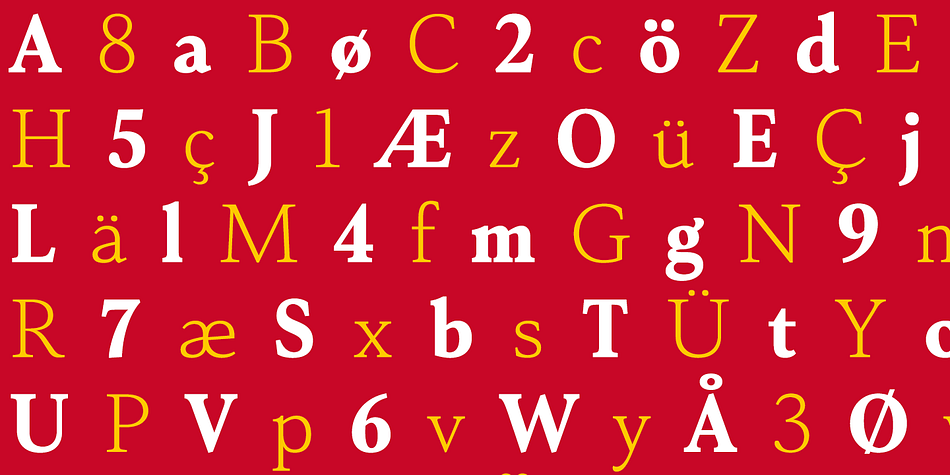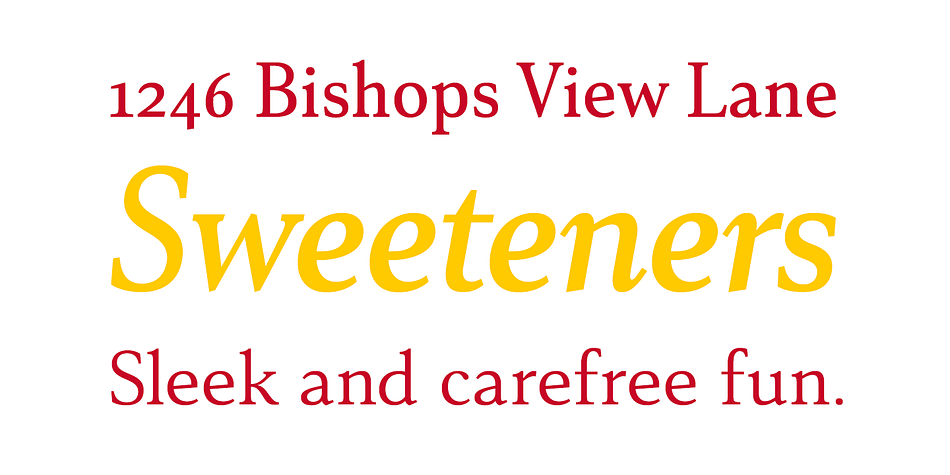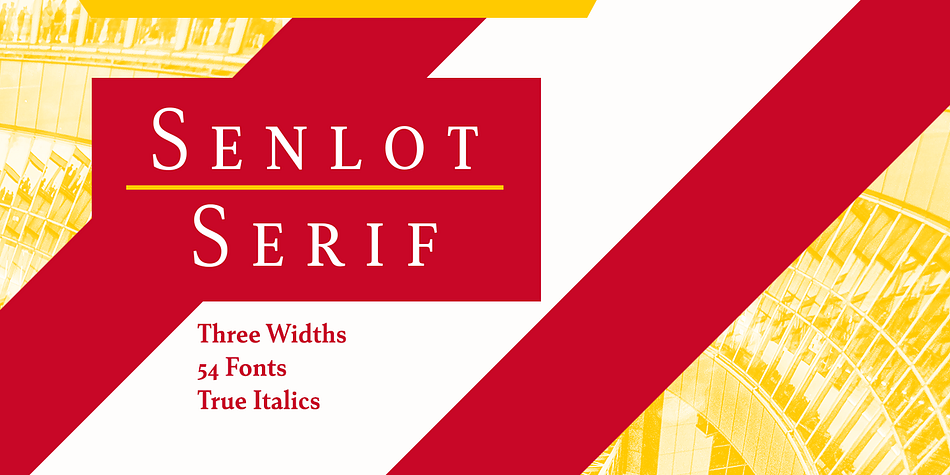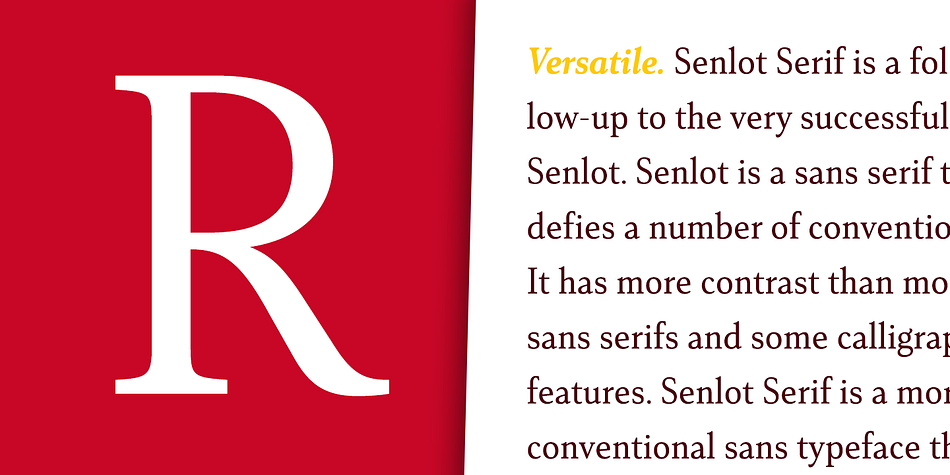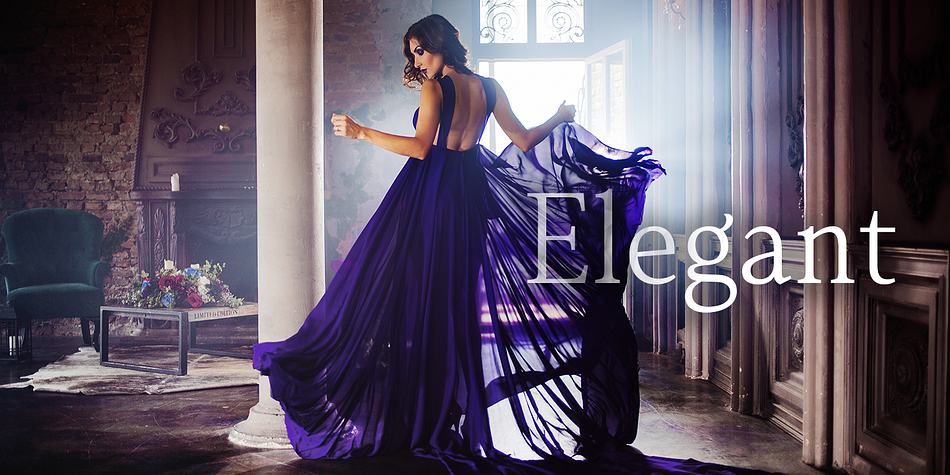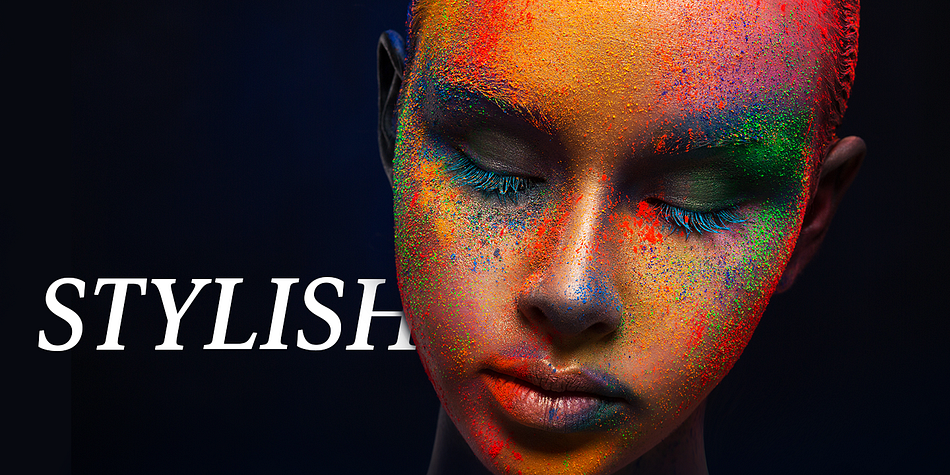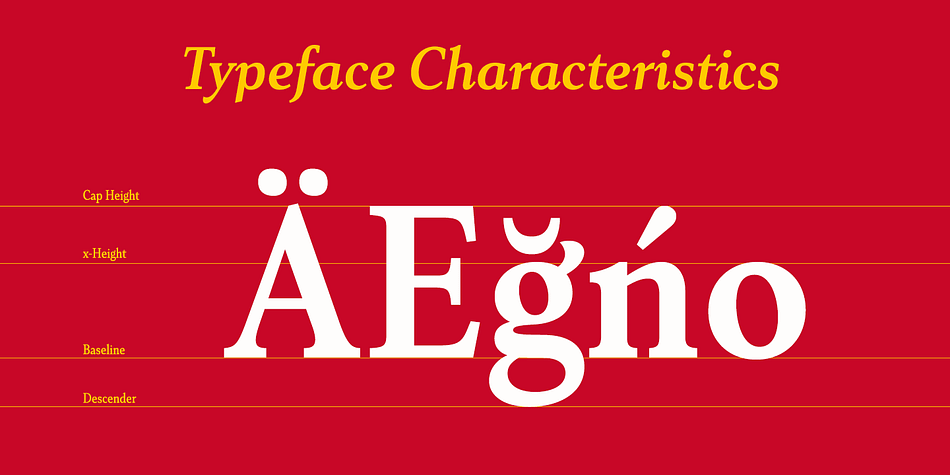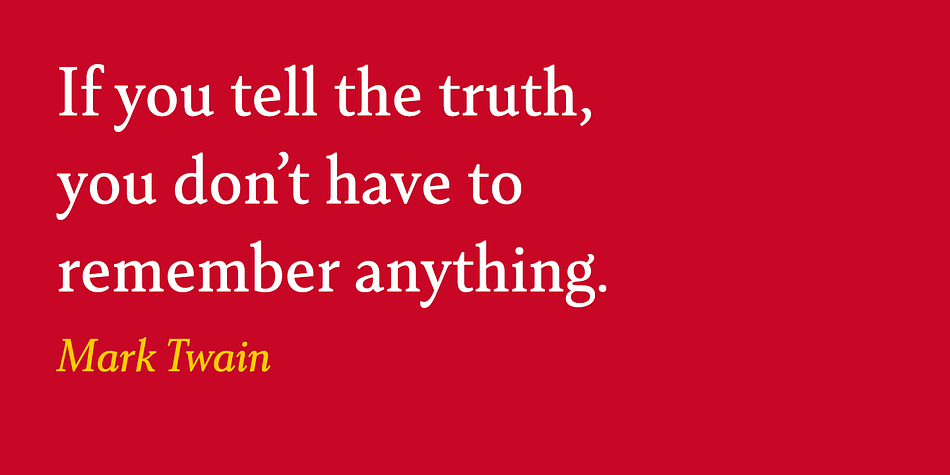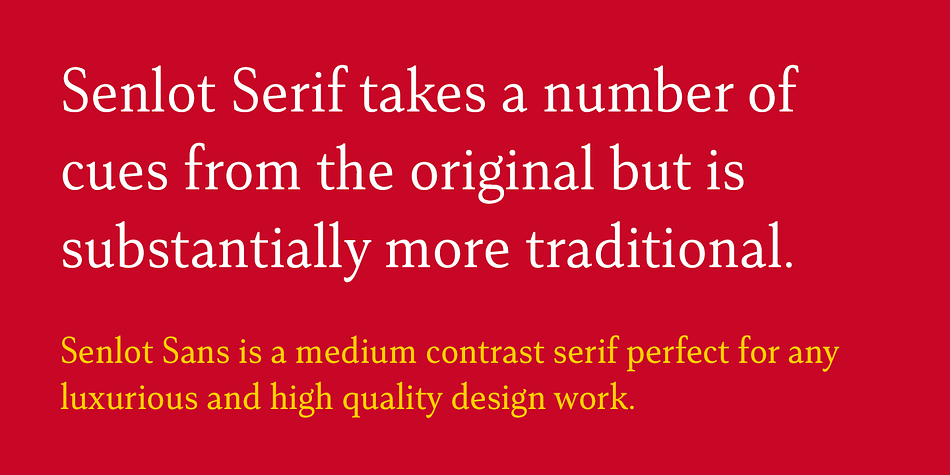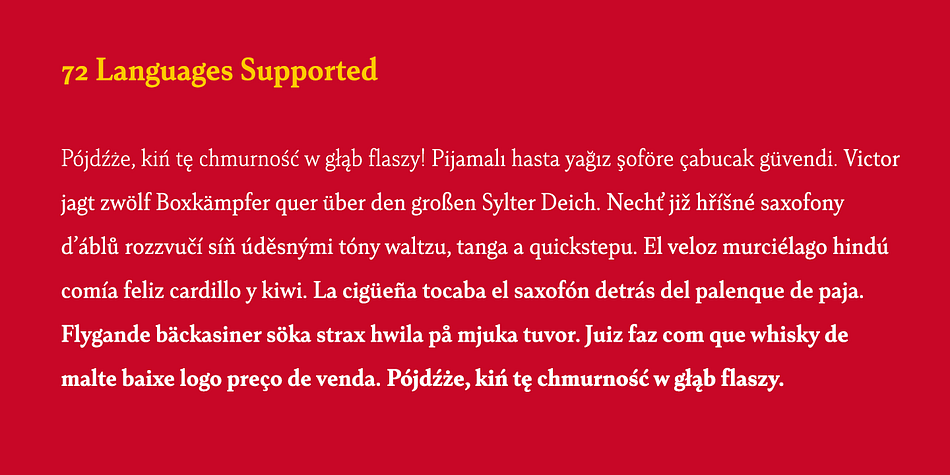
Designed by Jeremy Dooley, Senlot Serif is a serif font family. This typeface has fifty-four styles and was published by Insigne Design.
Senlot Serif is a follow-up to the technical yet elegant sans serif Senlot.
In this serif edition, the original’s calligraphic tension shines through, with a moderate amount of contrast. Moreover, you can use Senlot Serif to set large amounts of text or for titling. It has a special calligraphic tension, and lends itself to luxury and design work of high quality.
There’s a full set of small capitals and titling capitals and a real italic. Including thin to heavy, there are nine weights and three widths. Also included are a full set of OpenType features, super and subscript, old style numbers, and expanded Latin with support for more than 72 languages.
For your next luxury campaign, the new rich text is Senlot Serif.